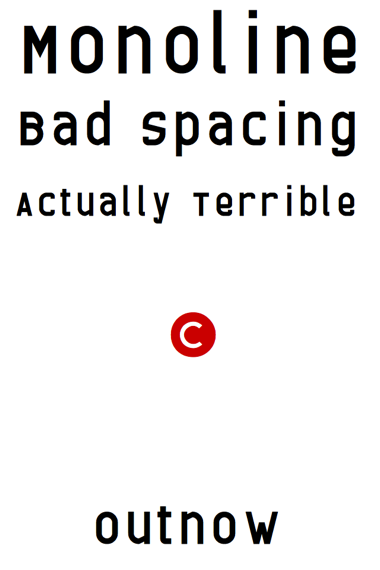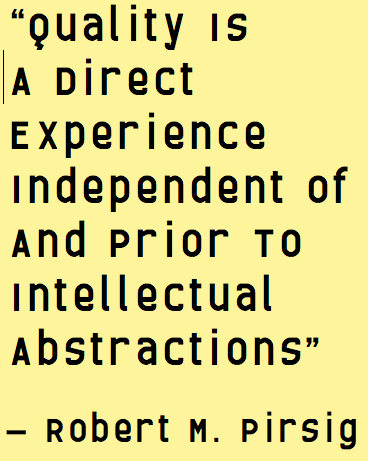
• I have dozens of unfinished fonts I keep tweaking and expanding. I needed to publish something. So I started a new one ;-) All latin and more latin glyphs, 2x3 grid, no filters, a good deal of composites, spacing like there’s no such thing. Enjoy! :-)
Added the OE/oe and IJ/ij ligatures from Latin A, to complete Western Europe coverage, including our French and Dutch friends :-)
I get this fresh kind of OCR-A, but-cool-again vibe. Efficacy in simplicity. ★★★★★